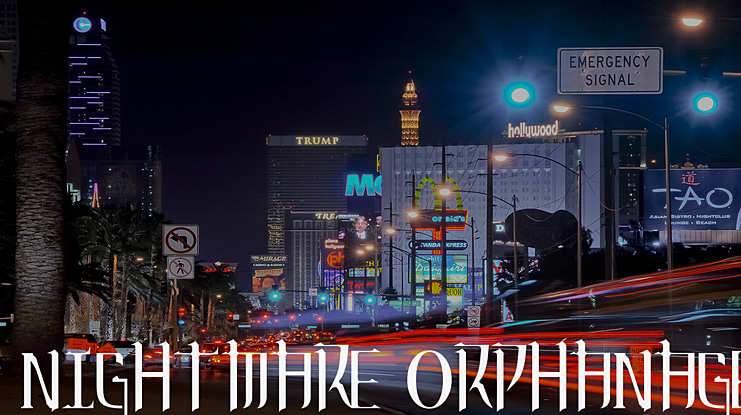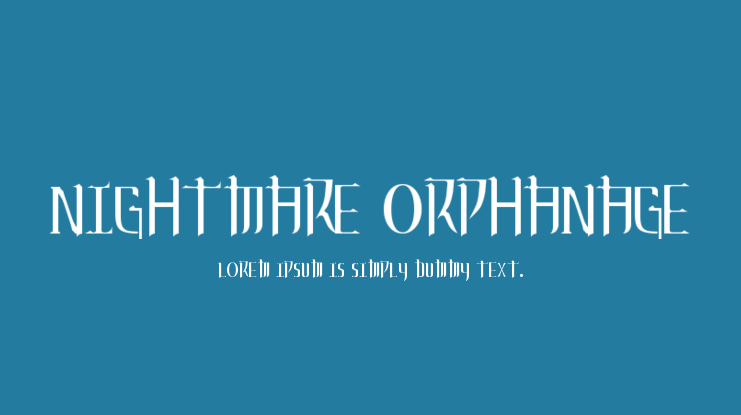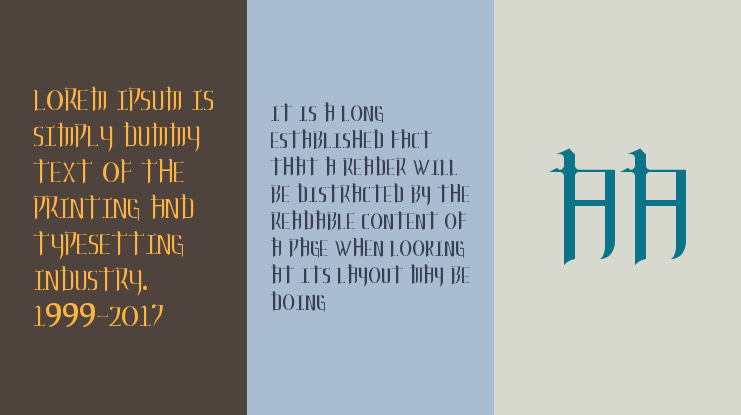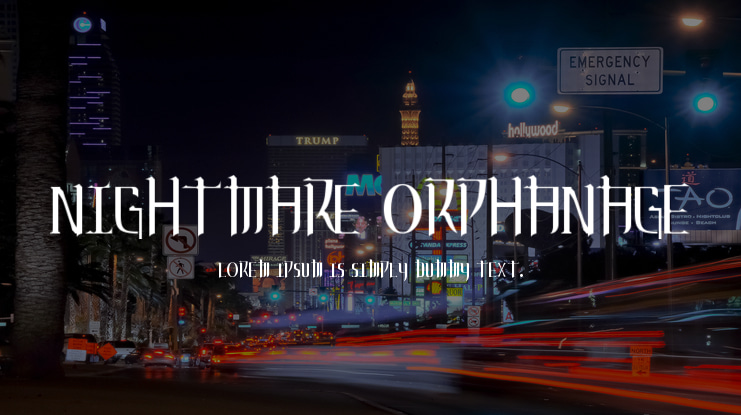
Nightmare Orphanage Font
Nightmare Orphanage
By Heaven Castro
Nightmare Orphanage is an anime-movie-inspired faux-Asian serif face
Based on Hangyaku font
叛逆フォントに基づく